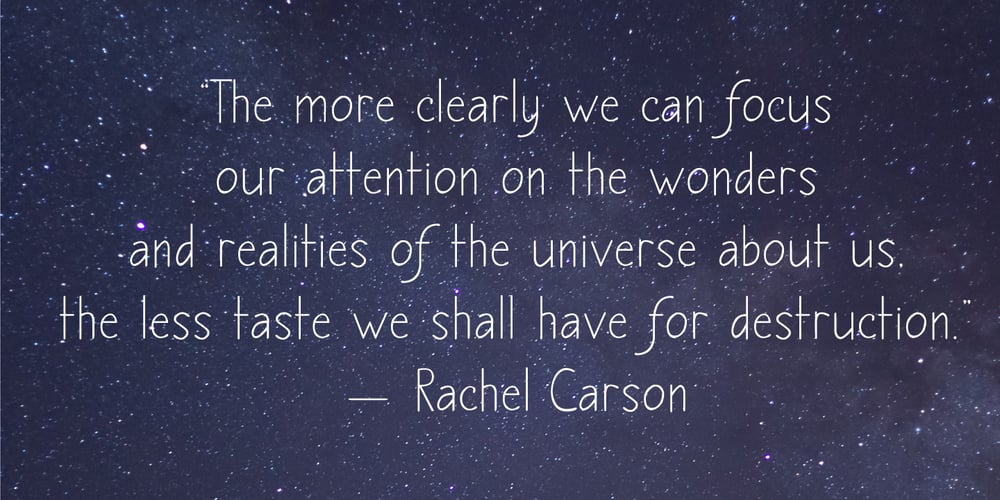
Concinnitas
Concinnitas font
Concinnitas Font Family was designed by Corien Bennink and published by Corien’s Handwritingfonts. Concinnitas contains 1 styles and family package options. Concinnitas (Latin for ‘neatness’) is a very neat print handwriting script. It’s a light weight very easy to read, yet elegant handwritten font.